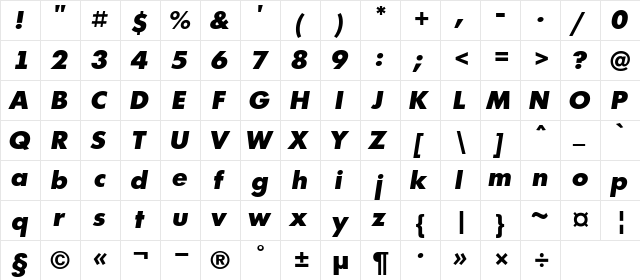
a_FuturicaBlack Italic Font Preview
a_FuturicaBlack Italic
a_FuturicaBlack Italic Font Details
Design Context for a_FuturicaBlack Typeface
a_FuturicaBlack has a distinctly futuristic character, with geometric precision and clean angles that feel at home in technology, gaming, and sci-fi contexts. The slanted form adds forward momentum and visual energy.
Pro Tip: Try a_FuturicaBlack with generous letter-spacing in UI labels and navigation — the geometric forms benefit from room to breathe.